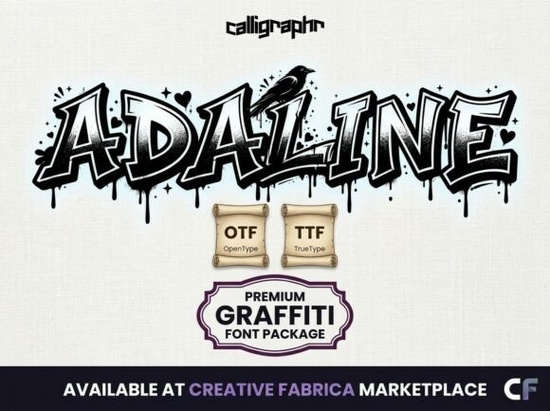
Designers, crafters, and small business owners often look for fonts that can make their work stand out. The Adaline Font is one such typeface that offers a bold and artistic presence. This decorative display font is ideal for those who want to create eye-catching designs without compromising on quality. Whether you're working on a logo, packaging, or a headline, Adaline brings a unique visual flair that can elevate your projects.
The Adaline Font is designed with a strong visual personality, making it perfect for high-impact applications. It features intricate details that turn each letter into a piece of art. Because it’s an all-caps font, it’s best suited for situations where uppercase letters are needed, such as headlines, logos, and decorative elements. This makes it a great choice for creative professionals looking to add a touch of elegance and sophistication to their work.
What Makes Adaline Stand Out?
One of the key strengths of the Adaline Font is its versatility. Despite being a decorative typeface, it maintains a professional and polished finish. This means it can be used in a variety of design contexts without looking out of place. For example, it works well for branding materials, social media graphics, and even print-on-demand products. Its artistic elements give it a distinctive character that can help your designs feel more original and expressive.
Who Can Benefit from Using Adaline?
Adaline is especially useful for creators who want to break away from standard typography. It’s a great option for small businesses looking to build a strong brand identity. For print-on-demand sellers, this font can add a unique touch to t-shirts, mugs, and other merchandise. Crafters and hobbyists will also find it valuable for creating personalized items that stand out from the crowd.
If you’re working on a project that requires a bold, artistic look, Adaline can be a game-changer. Its clean yet striking design makes it easy to use without needing advanced typographic skills. You don’t have to be a professional designer to take advantage of its visual appeal.
How to Use Adaline Effectively
To get the most out of the Adaline Font, consider the following tips. First, use it for headlines and titles where it can shine. Avoid using it for long blocks of text, as its decorative style may reduce readability. Second, pair it with simpler fonts for balance. For example, combining Adaline with a sans-serif font can create a modern and cohesive look.
When working with the font, keep in mind that it only includes uppercase letters. This means you’ll need to adjust your text accordingly. Some design programs allow you to convert lowercase letters to uppercase, but it’s always good to check how the font behaves in your specific software.
Final Thoughts
The Adaline Font is a powerful tool for anyone looking to add a unique and artistic touch to their work. Its combination of style and functionality makes it a valuable addition to any designer’s toolkit. Whether you're creating logos, packaging, or social media content, this font can help you achieve a professional and memorable result.
- Use it for headlines and titles to maximize its visual impact.
- Pair it with simpler fonts for balanced design compositions.
- Ensure all text is in uppercase since the font does not include lowercase letters.